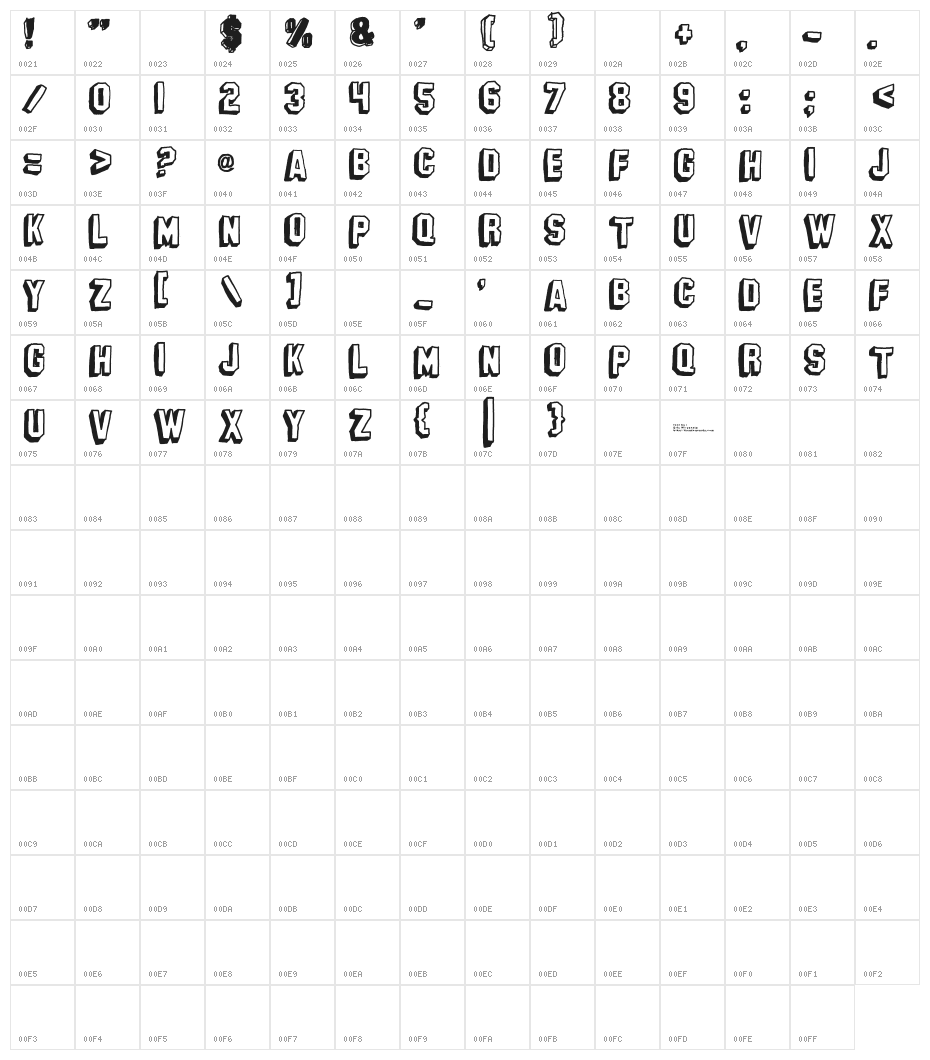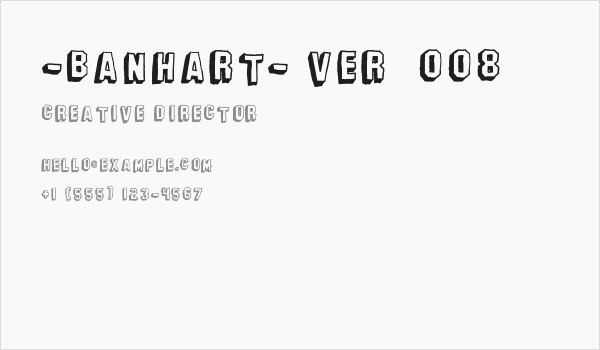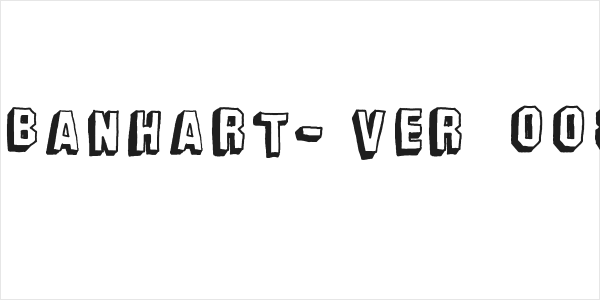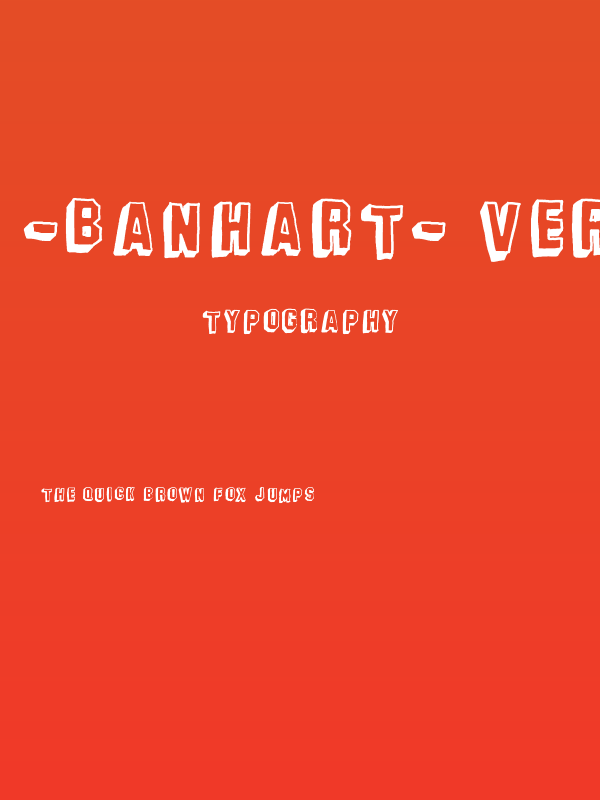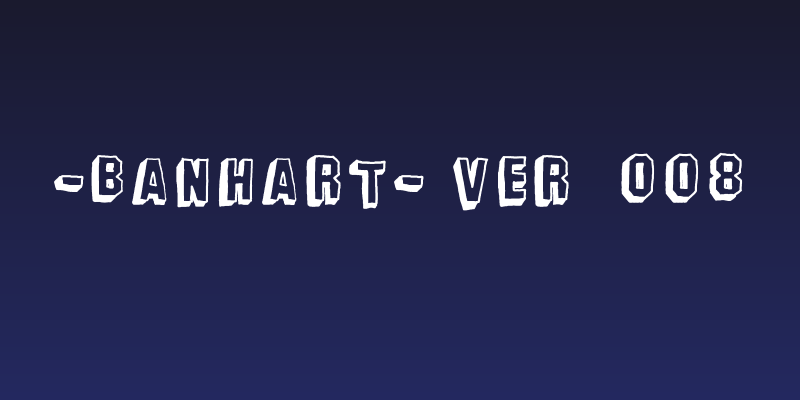
-banhart- ver 008 Font
-banhart- ver 008 Description
A highly decorative and whimsical handwritten font with irregular, playful letterforms and varying stroke thickness, giving it a lively and artistic appearance. The characters have unique, organic shapes with uneven baselines and quirky details.
| Overall Style | Decorative, Artistic, Whimsical |
| Use Case | Logos, Headlines, Posters, Invitations |
| Proposed Projects | Album covers, posters, creative branding, invitations, art projects, children's books. |